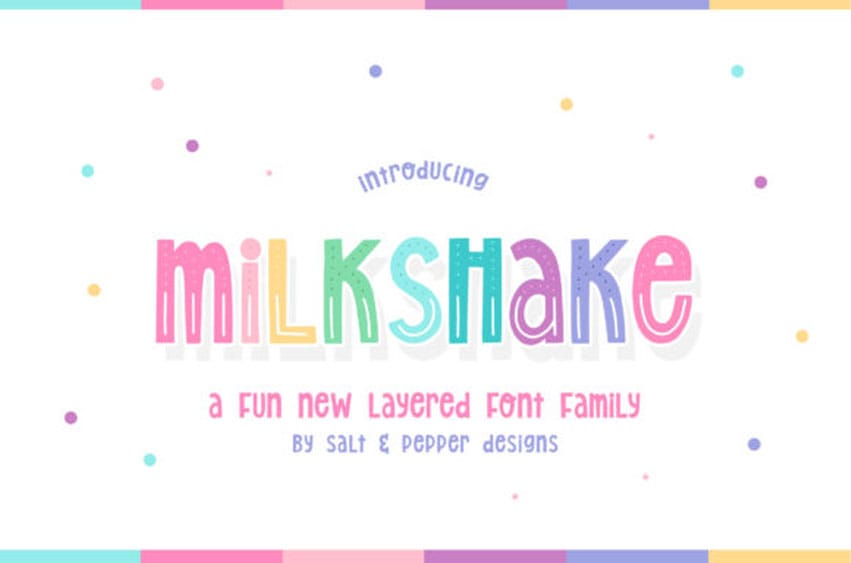
Milkshake Layered Font is a fun, colorful and friendly display font.
It embodies playfulness and authenticity and is the perfect choice for any children activity or school project.